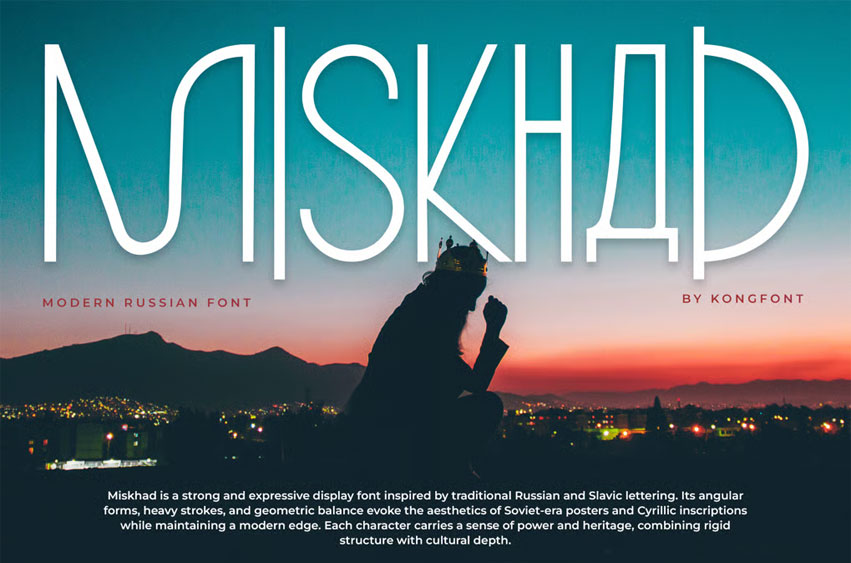
Miskhad Font is a modern Russian font that blends strong cultural heritage with sleek contemporary design. Inspired by Cyrillic aesthetics, this typeface captures the boldness and precision often found in Slavic typography while maintaining a clean, minimalist edge suited for modern creative work.
Miskhad is perfect for branding, editorial headlines, posters, and cultural projects that seek to reflect authenticity and sophistication. Its geometric structure and powerful letterforms make it stand out in both print and digital compositions, bringing a unique Eastern European charm to your designs.
Whether used for logo creation, packaging, or artistic layouts, Miskhad delivers a confident and distinctive visual identity rooted in Russian tradition yet reimagined for modern times.